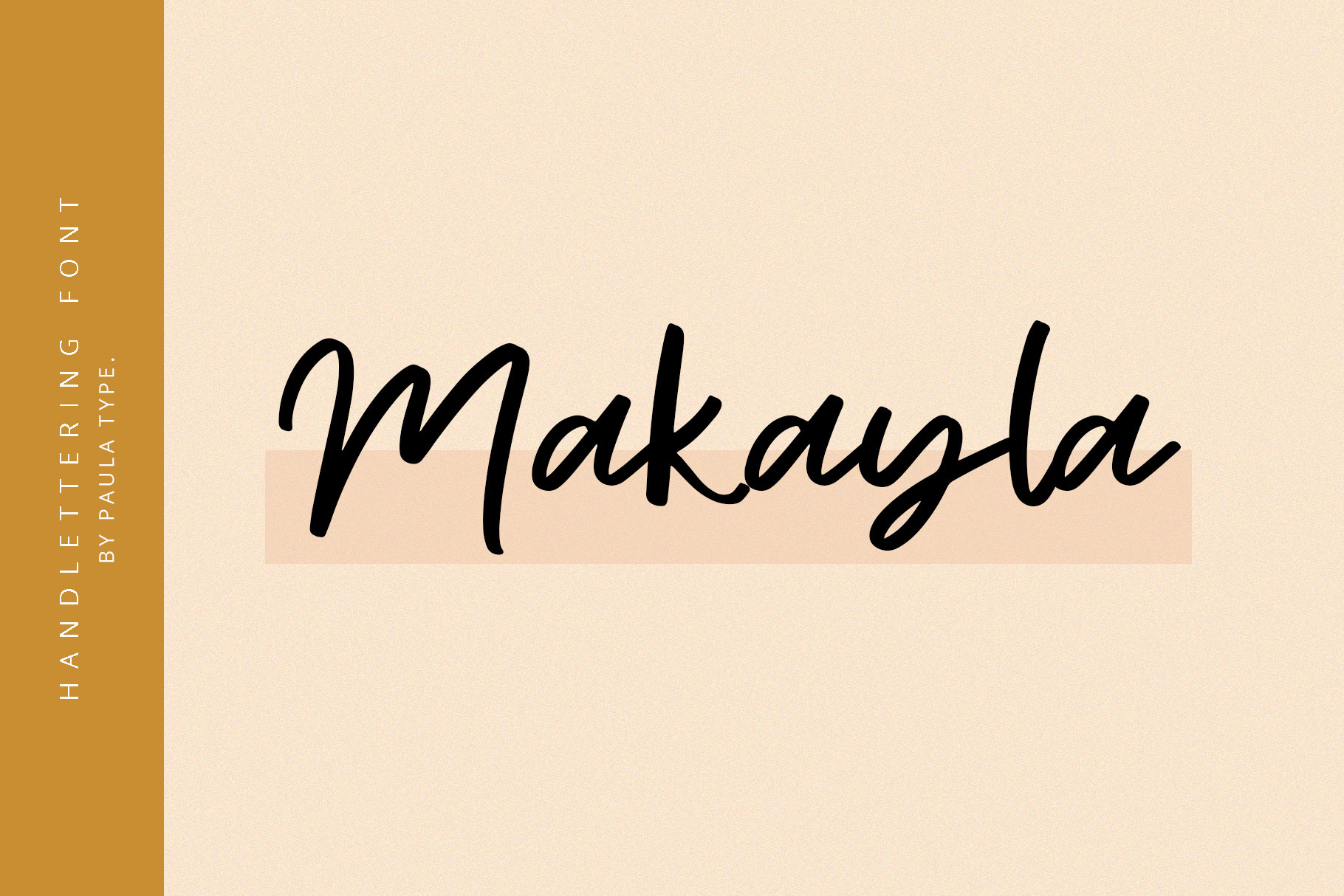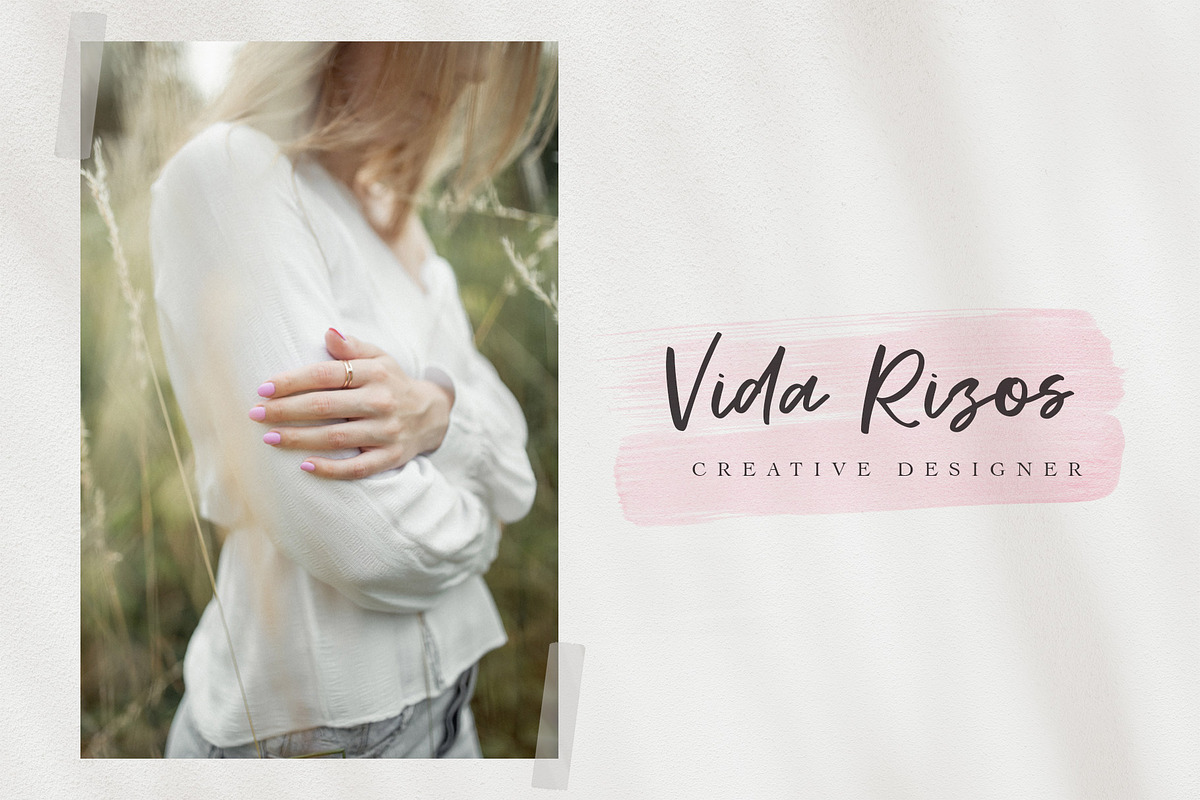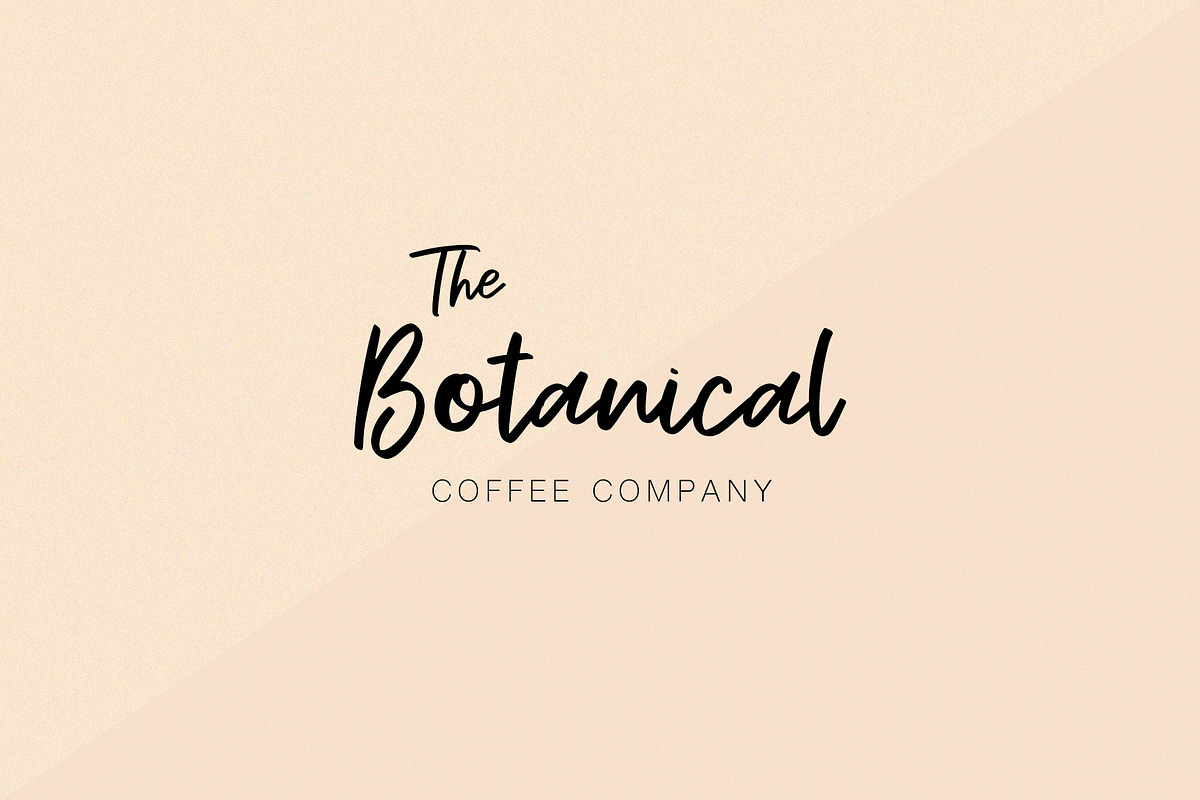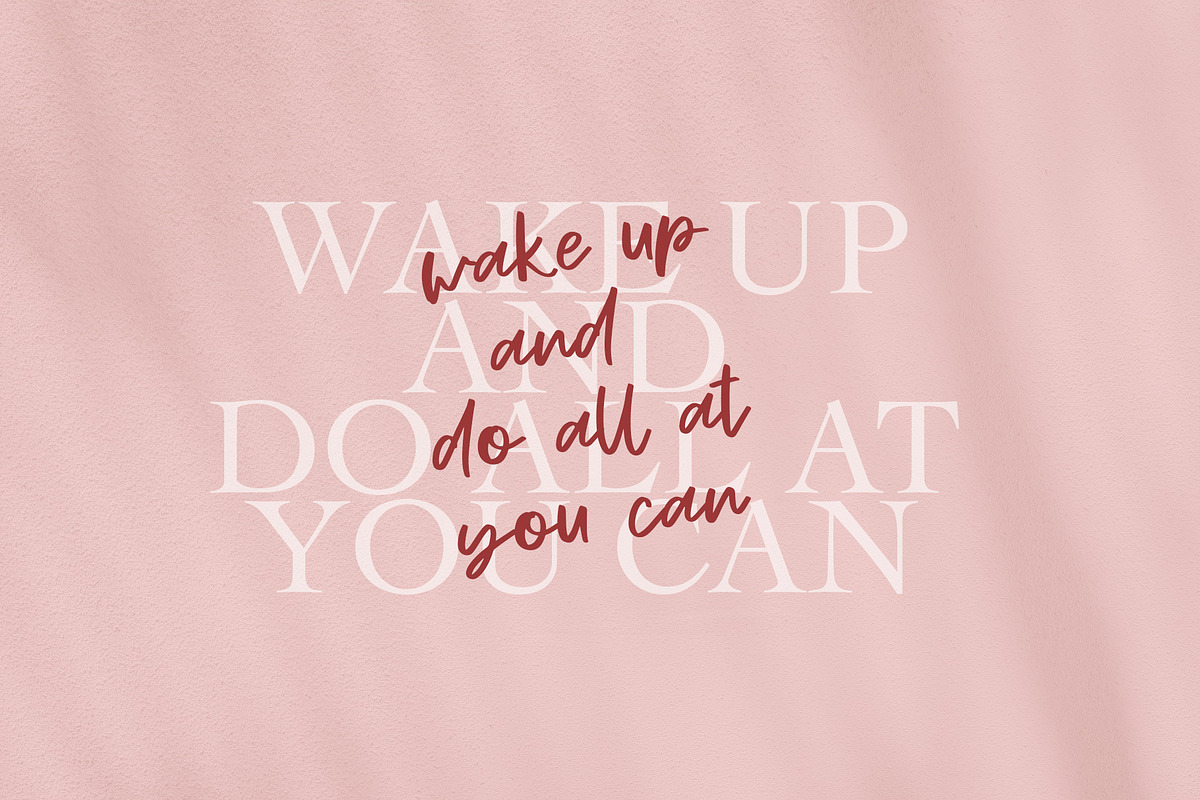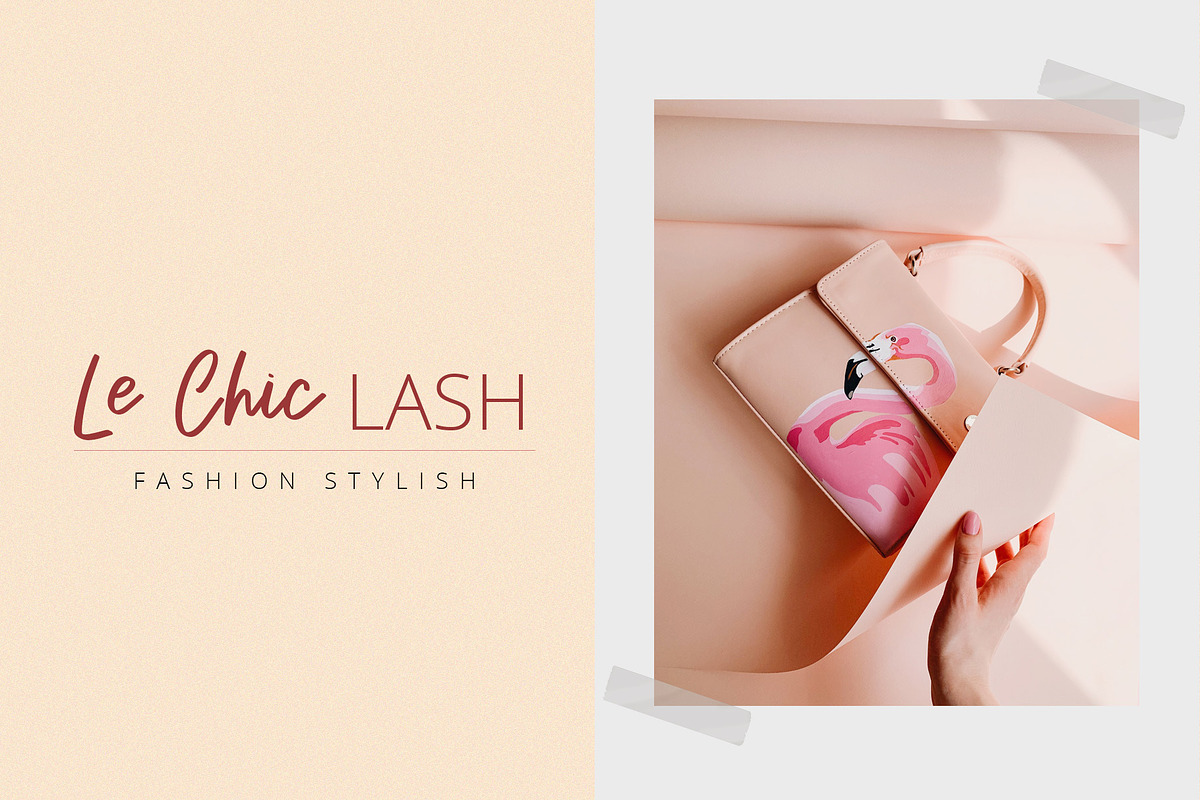
Makayla | Handwritten Font
I just finished my new font. Makayla It's Handwritten perfect font for your project. Get inspired with this classy, versatile and beautiful handwritten with a modern and minimalist style.
This handwritten font is ideal for branding and decorates your any project. I think it combines all these qualities. Simple and clear.
Every single letter has been creative carefully. This font is perfect for making your set of invitations, Brand, blog posts, DIY projects, greeting cards, labels, quotes, posters, wall art, branding, packaging, websites, photo & photography overlays, signs, window art, scrapbooking, tags and so much more!